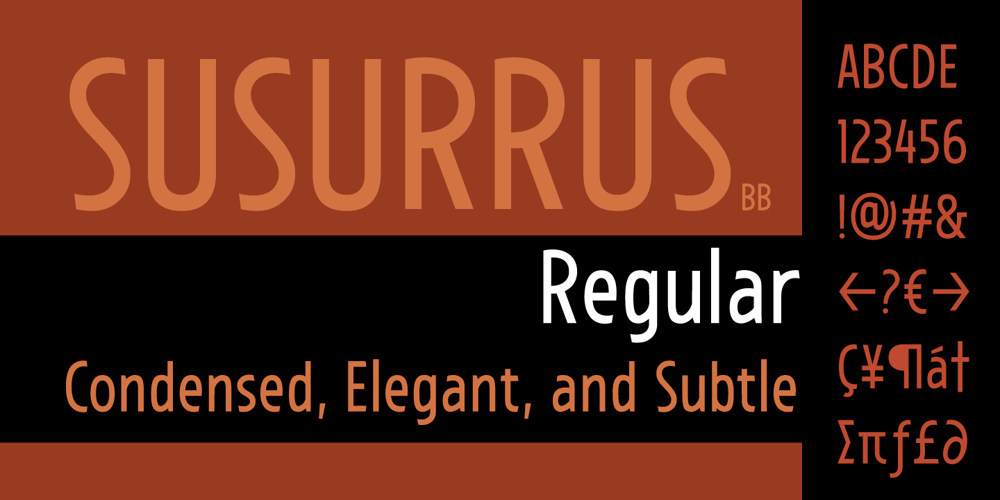
Susurrus BB Font Family was designed by Nate Piekos and published by Blambot. Susurrus BB contains 7 styles and family package options. Susurrus BB is a condensed, elegant, and subtle body copy font created with the graphic designer in mind. It comes with Regular, Italic, Bold, and BoldItalic, and includes a large complement of European characters.